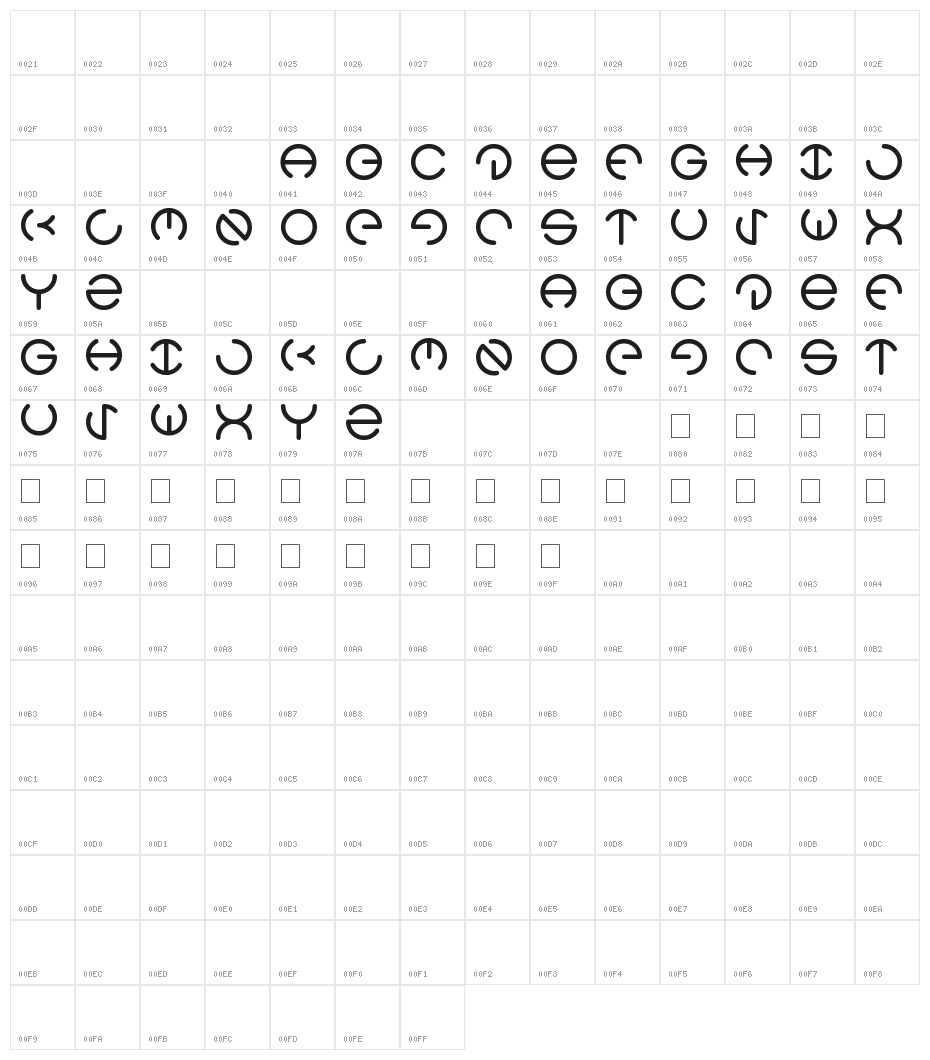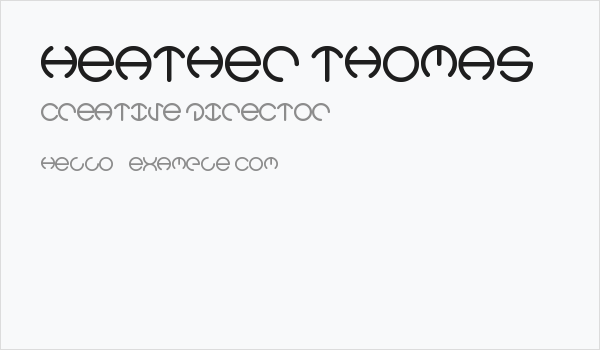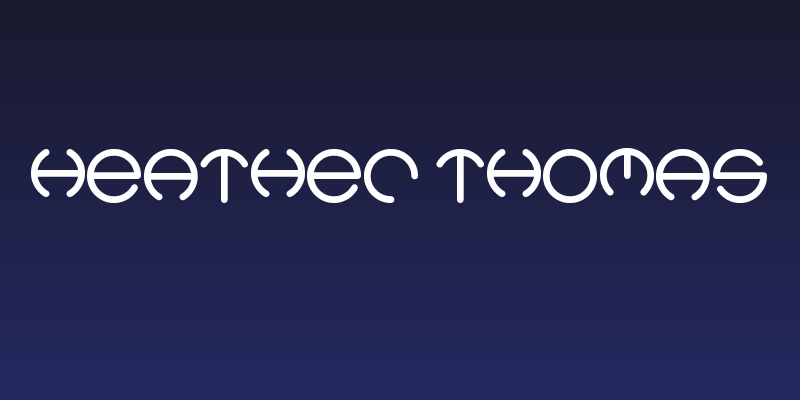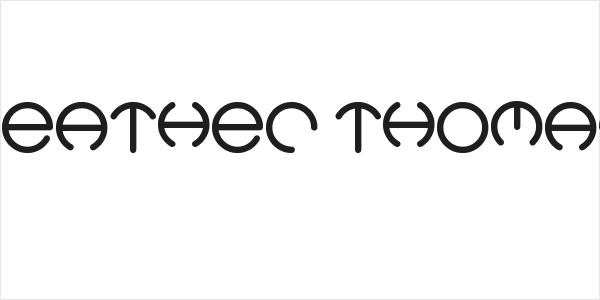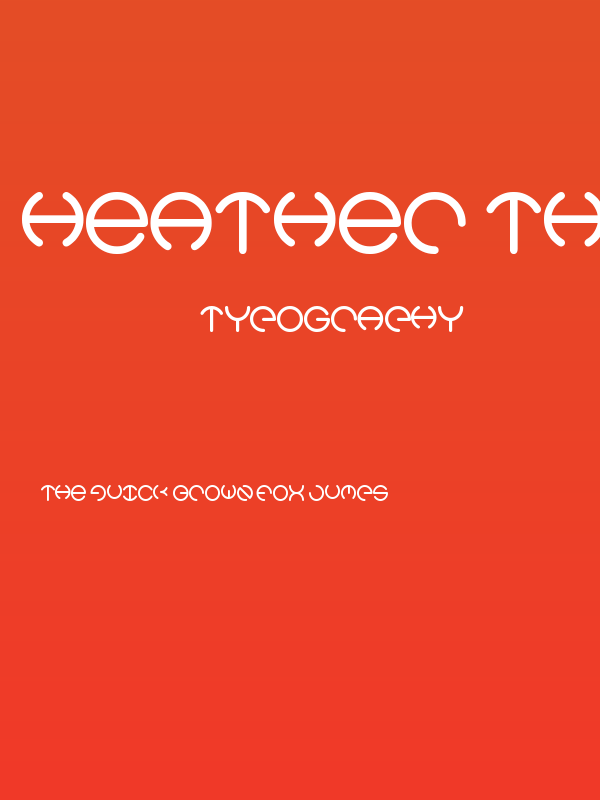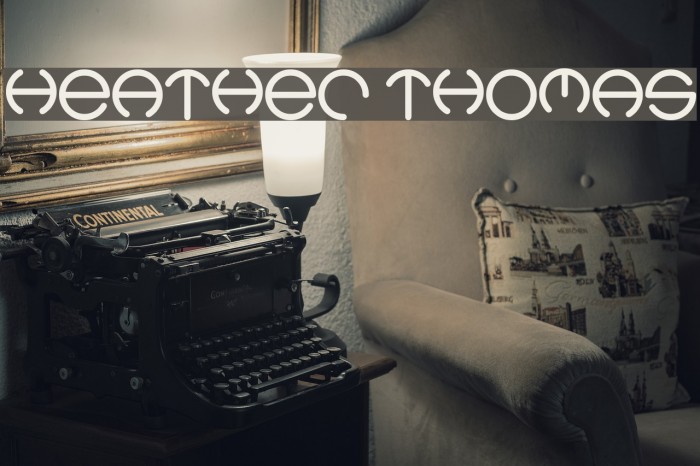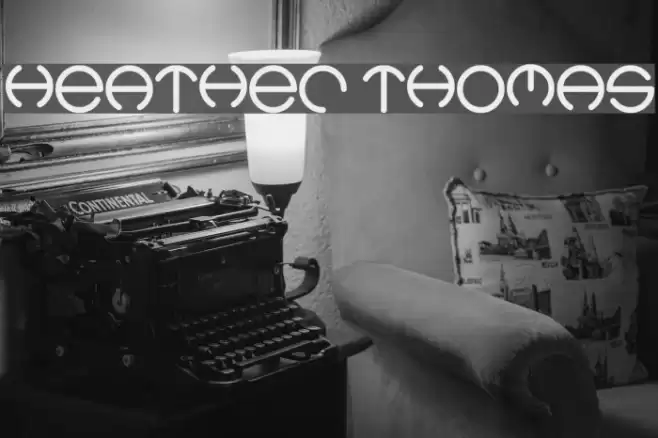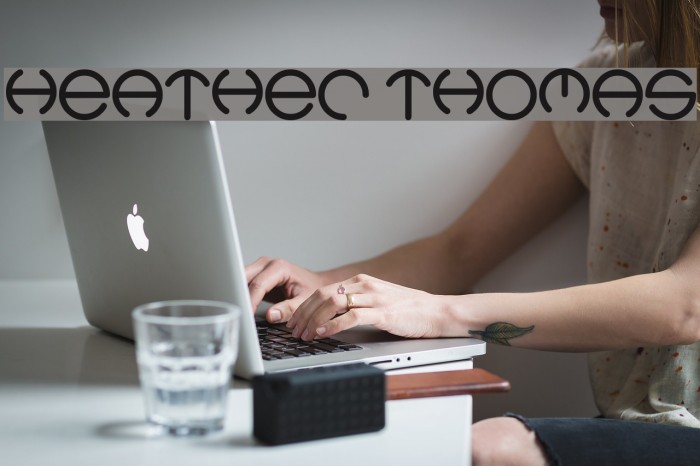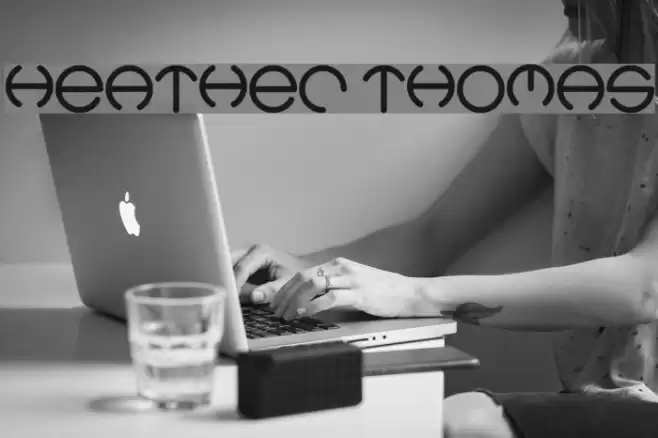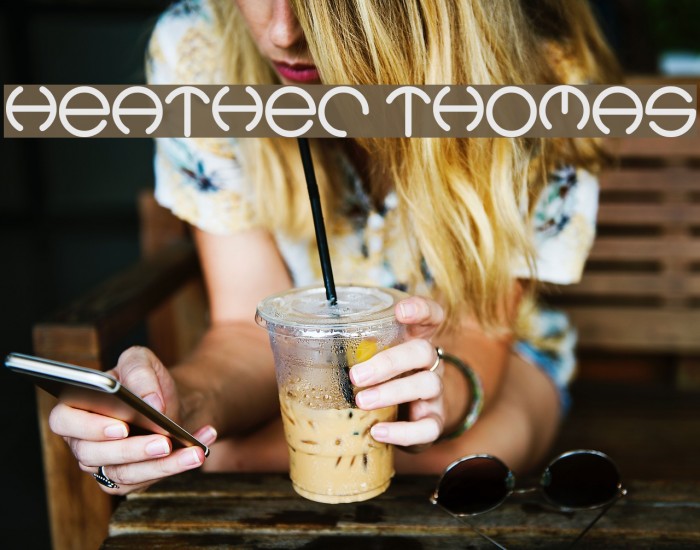
Heather Thomas Font
✎ Futuristic
Heather Thomas Description
This font features a unique, futuristic design with a circular and geometric aesthetic. Each character is crafted with a consistent line weight, creating a harmonious and balanced appearance. The letters are formed with smooth curves and closed loops, giving them a modern and sleek look. The style is highly decorative, making it stand out in any design project. The font's distinctiveness lies in its ability to convey a sense of innovation and creativity, making it ideal for projects that require a bold and unconventional typeface.
| Categories | Futuristic |
| Use Case | Logos, Headlines, Posters |
| Proposed Projects | Ideal for sci-fi themed designs, technology branding, innovative product packaging, and creative advertising campaigns. |